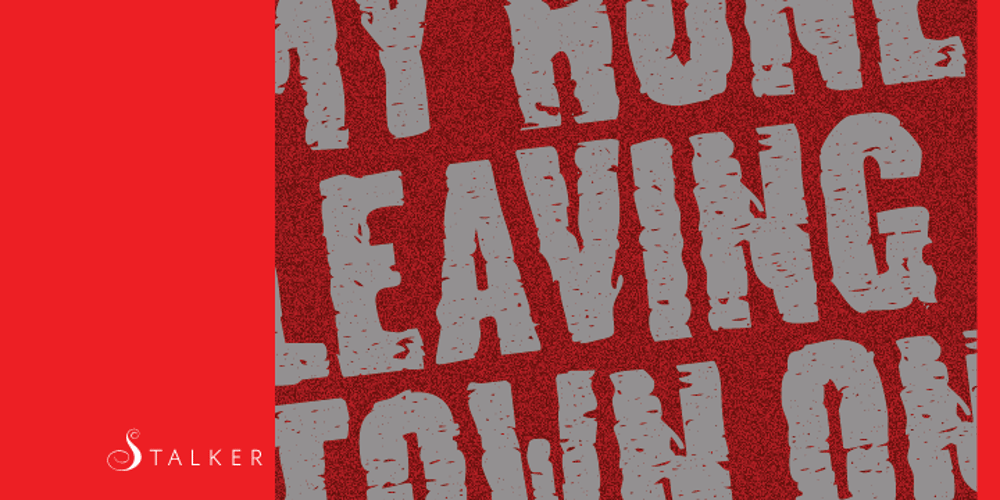
Stalker Font Family was designed by Rebecca Alaccari and published by Canada Type. Stalker contains 2 styles and family package options. Stalker is one of those necessary fonts in a designer’s toolbox: Grungy sans serif caps that are most useful for entertainment project chores. Originally made in the summer of 2003 for set and prop design of an Alliance film, Stalker is now available in retail form for those who are particular about their entertainment design or those who use broken letters in their design as means of social commentary or statement on style.